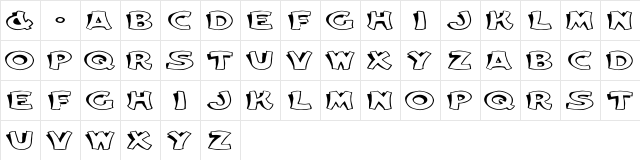
Elwood Ex Regular Font Preview
Elwood Ex Regular
Design Context for Elwood Ex Typeface
Elwood Ex echoes the hand-painted signage and woodblock typography of the American frontier, with a warm, rugged personality.
A natural fit for craft spirits, ranch branding, rodeo events, and Americana-inspired design work.
Font Pairing: Combine Elwood Ex with a simple slab or neutral sans — period-accurate companions reinforce the vintage feel without competing for attention.
Pro Tip: Use Elwood Ex for short, impactful bursts of text — it shines in poster headlines and product names rather than extended copy.